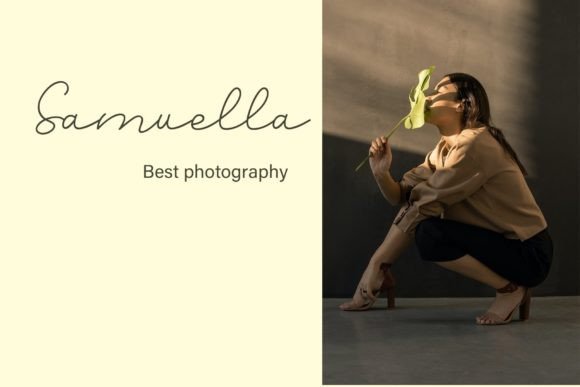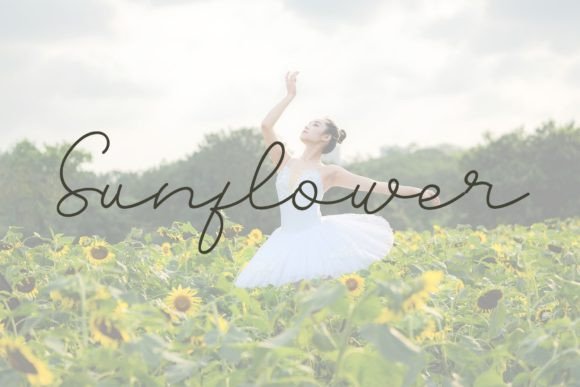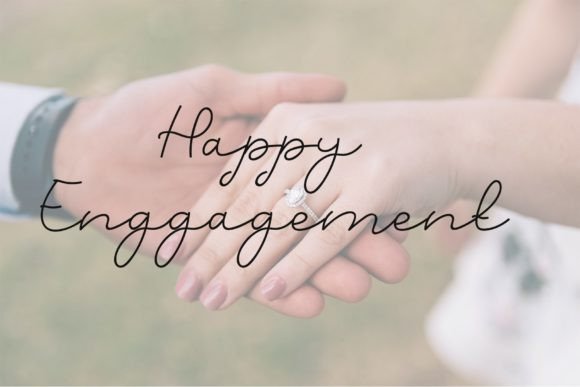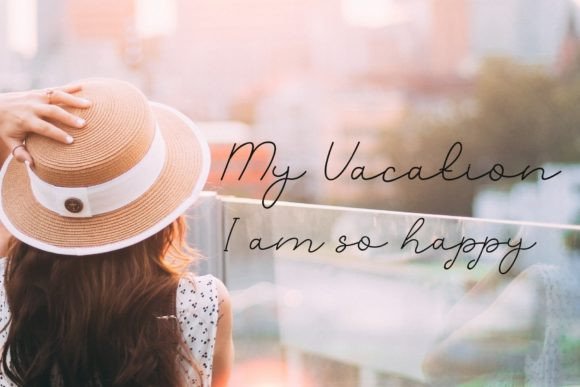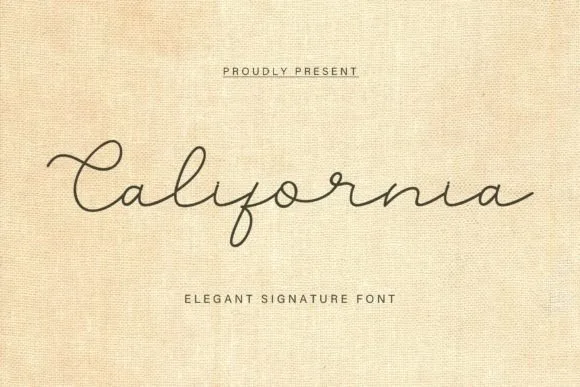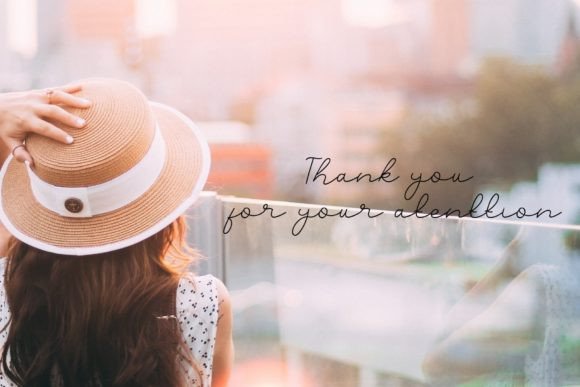
California Font
California, with its charming and elegant handwritten style, embodies sweetness and beauty in the world of fonts. Its characters gracefully sway along the baseline, creating a mesmerizing dance that captures the essence of luxury. When you incorporate this font into your design projects, it effortlessly adds a touch of sophistication and extravagance, elevating your creations to new heights of visual appeal.
Imagine a font that not only conveys your message but also does so with a sense of grace and style. California achieves just that. Its carefully crafted letters have a unique fluidity, resembling the strokes of a skilled calligrapher’s pen. Each character exudes a sense of artistic flair, making it perfect for a wide range of applications, from invitations to branding materials, and everything in between.
One of the remarkable features of California is its ability to transform ordinary text into a visual masterpiece. The letters seem to come to life, dancing harmoniously across the page or screen. This font effortlessly captures the eye, drawing viewers in with its enchanting allure. Whether you are designing a wedding invitation, a luxurious packaging, or a high-end advertisement, California will infuse your project with an air of refinement that is simply unmatched.
The versatility of California knows no bounds. It adapts seamlessly to various design themes, enhancing the overall aesthetic of your work. Its graceful curves and gentle lines create a sense of softness, making it ideal for projects that require a delicate touch. Additionally, the font’s luxurious spark adds a layer of opulence, making it particularly suitable for upscale events, exclusive products, or premium services.
In the realm of typography, California stands as a symbol of elegance and creativity. Its handwritten charm brings a personal touch to any design endeavor, making your audience feel a deeper connection with your message. Whether you are crafting a logo for a high-end boutique, designing a menu for a gourmet restaurant, or preparing promotional materials for a luxury event, California will leave a lasting impression, leaving your audience in awe of your attention to detail and style.
In conclusion, California is more than just a font; it is a work of art. Its sweet and beautiful handwritten style, coupled with its ability to add a luxury spark to any design project, makes it a valuable asset for designers and creatives. So, the next time you embark on a design journey, let California be your muse, transforming your vision into a masterpiece that resonates with elegance and sophistication.